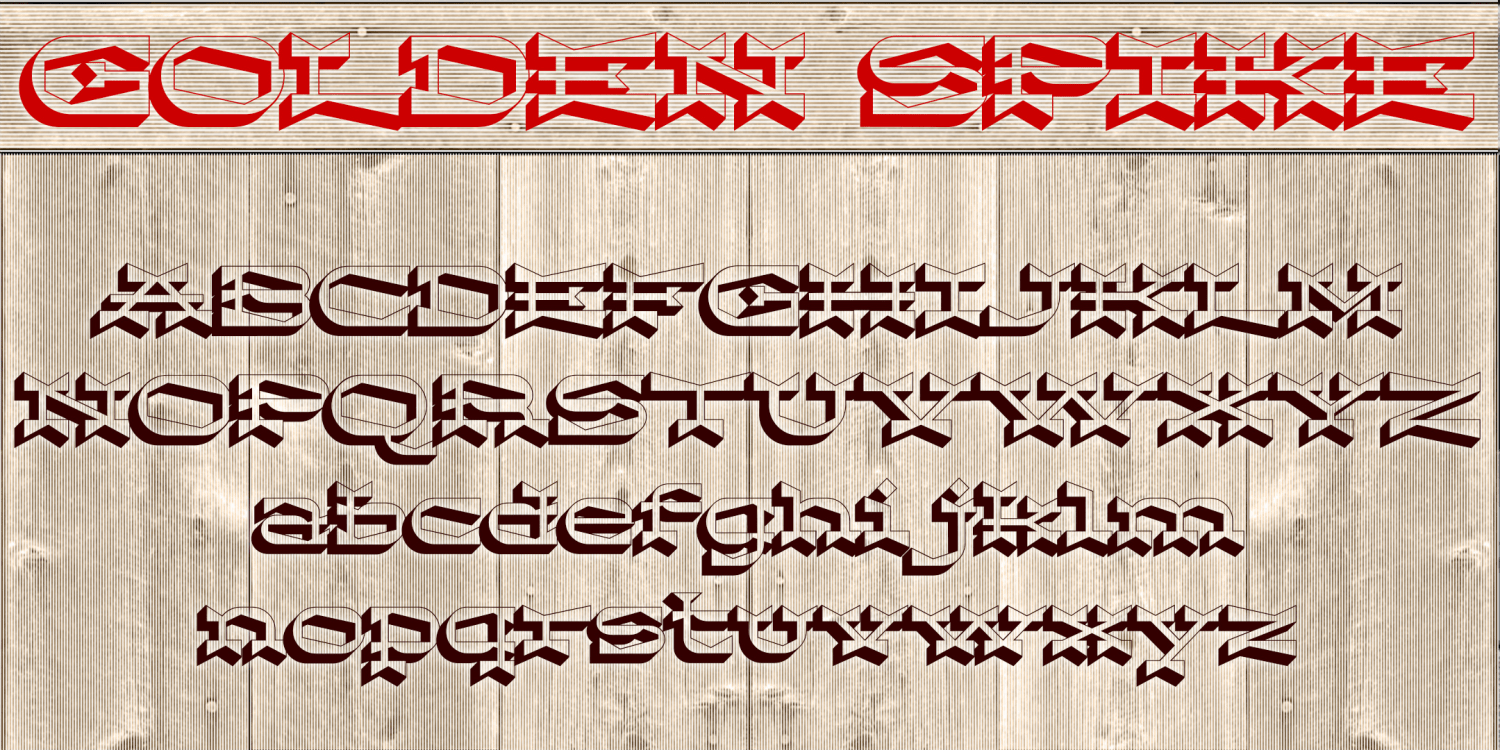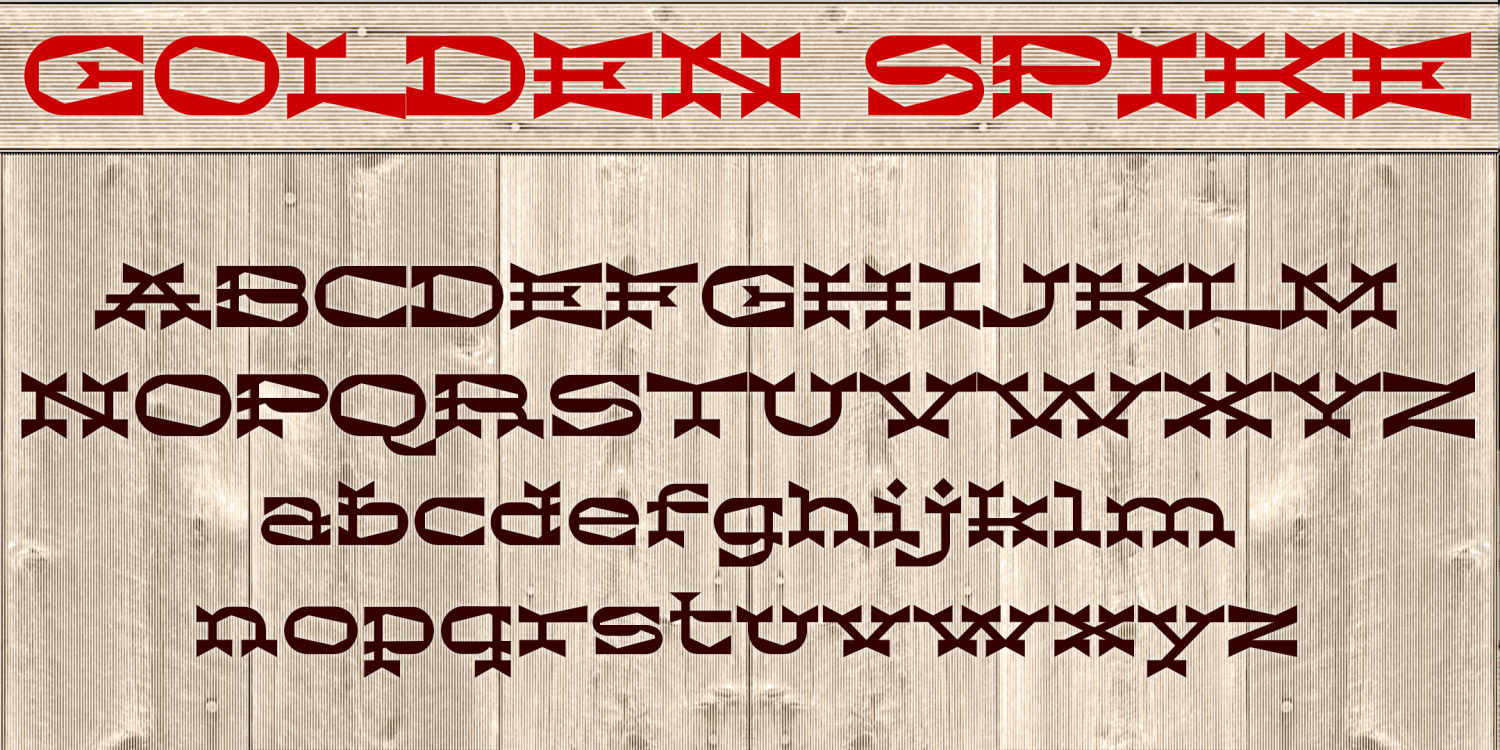
HomeFont BrosSpecial EffectGolden Spike Special Effect Golden Spike FacebookXPinterestWhatsApp 1 of 2 About Golden Spike GOLDEN SPIKE is a wide serif font that combines the bold serifs of a Western woodtype with dramatic wedge shapes for an exotic texture. Also available in "Deep", a 3-dimensional version.  DOWNLOAD ON FONT BROSThis font is sold and delivered by Font Bros. Font Canyon may earn a commission if you buy through this link. People also explored Sanestu Font Rebutter Font Beautiful Mellinda Font Dillova Font Today Holiday Font Yugitoy Font Heliconia Script Font Argodame Extra Black Font Apache Font 246 0 TagsGolden Spike Font Previous articleRama Gothic RoundedNext articleCitrus LEAVE A REPLY Cancel reply Comment: Please enter your comment! Name:* Please enter your name here Email:* You have entered an incorrect email address! Please enter your email address here Website: Save my name, email, and website in this browser for the next time I comment. Personal Use Free Adlanta Personal Use Free Read more about this font The Moshbusther Personal Use Free Read more about this font Pouline Personal Use Free Read more about this font Bollado Personal Use Free Read more about this font BLOG 5 Fonts That Will Dominate Design Trends in 2026 5 Fonts for 2026 That Will Dominate Design Trends Typography plays a critical role in visual communication, and as we look ahead to 2026, it’s... Where to Buy American Fonts Online in 2024 Top 7 Google Fonts Alternatives for Faster and Privacy-Friendly Web Design (2025) How to Cut Any Font on Cricut: Convert a Font to SVG (Free)